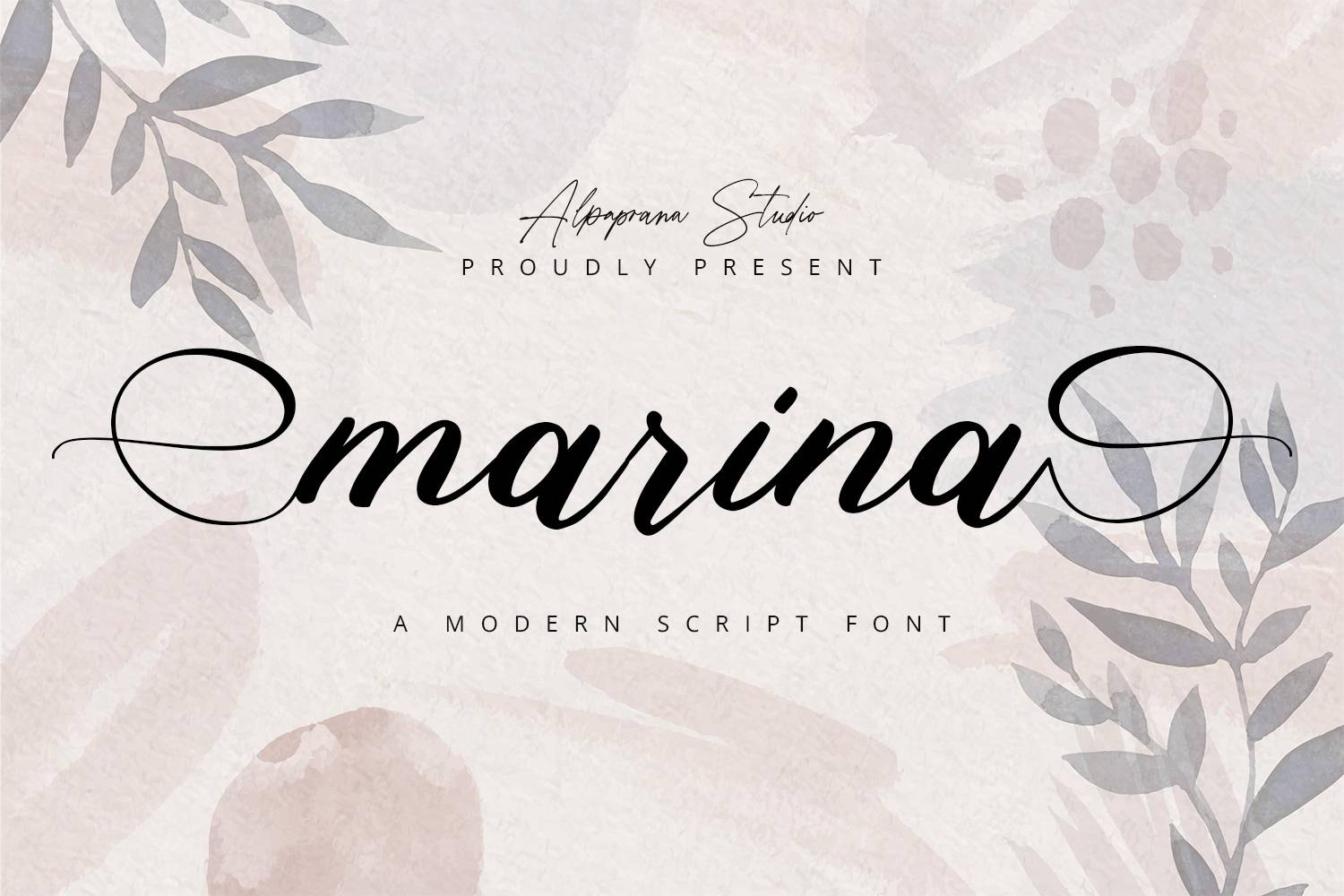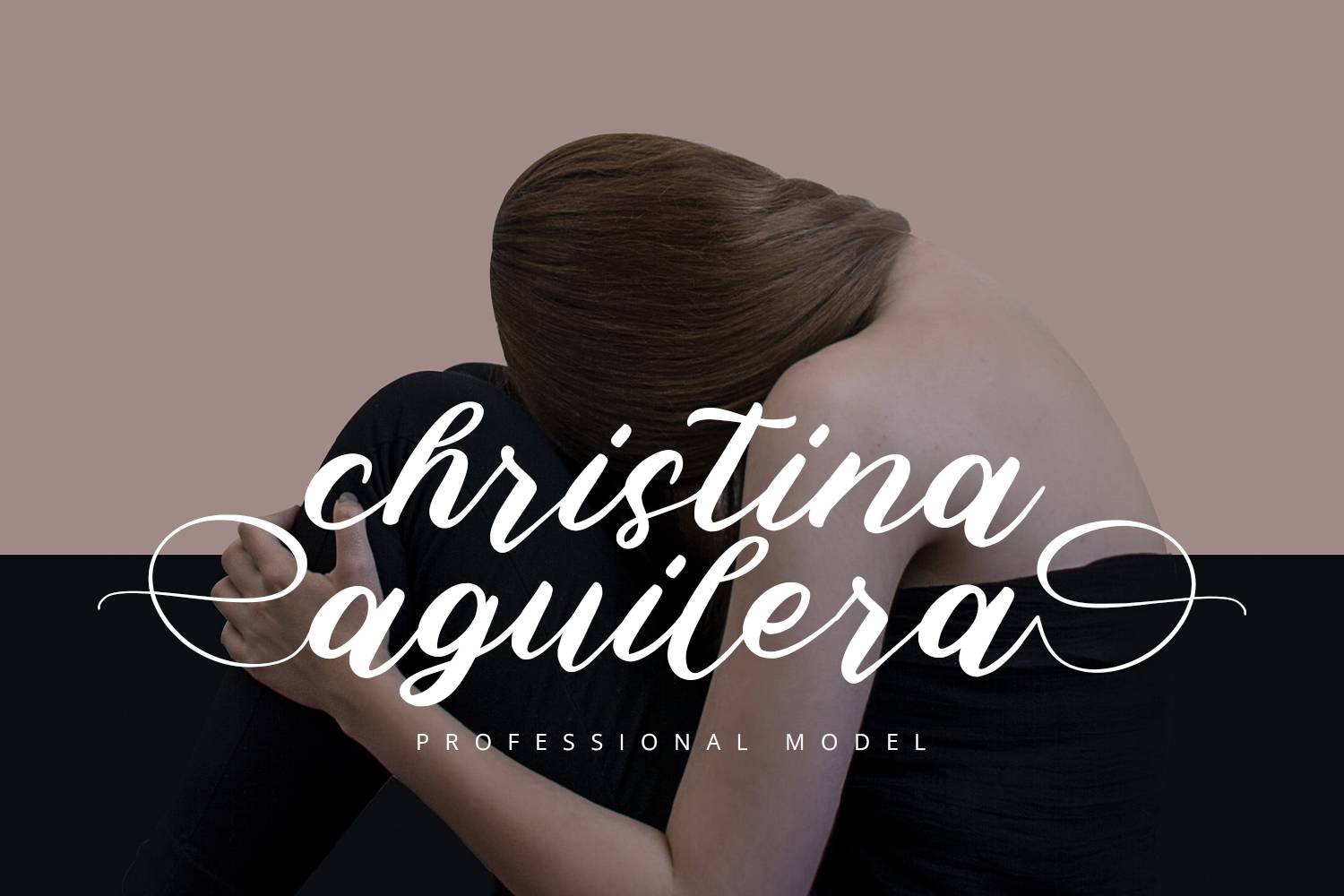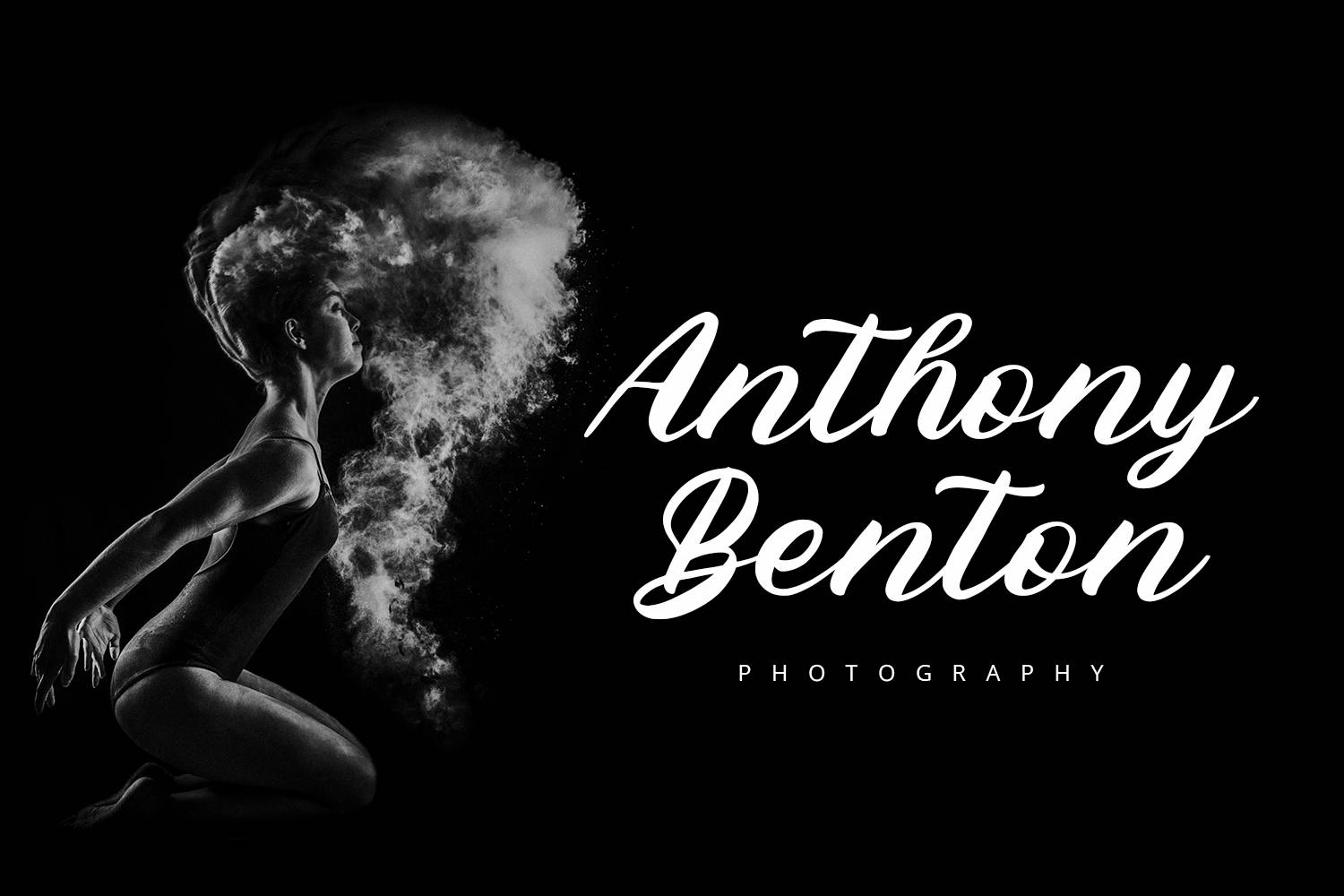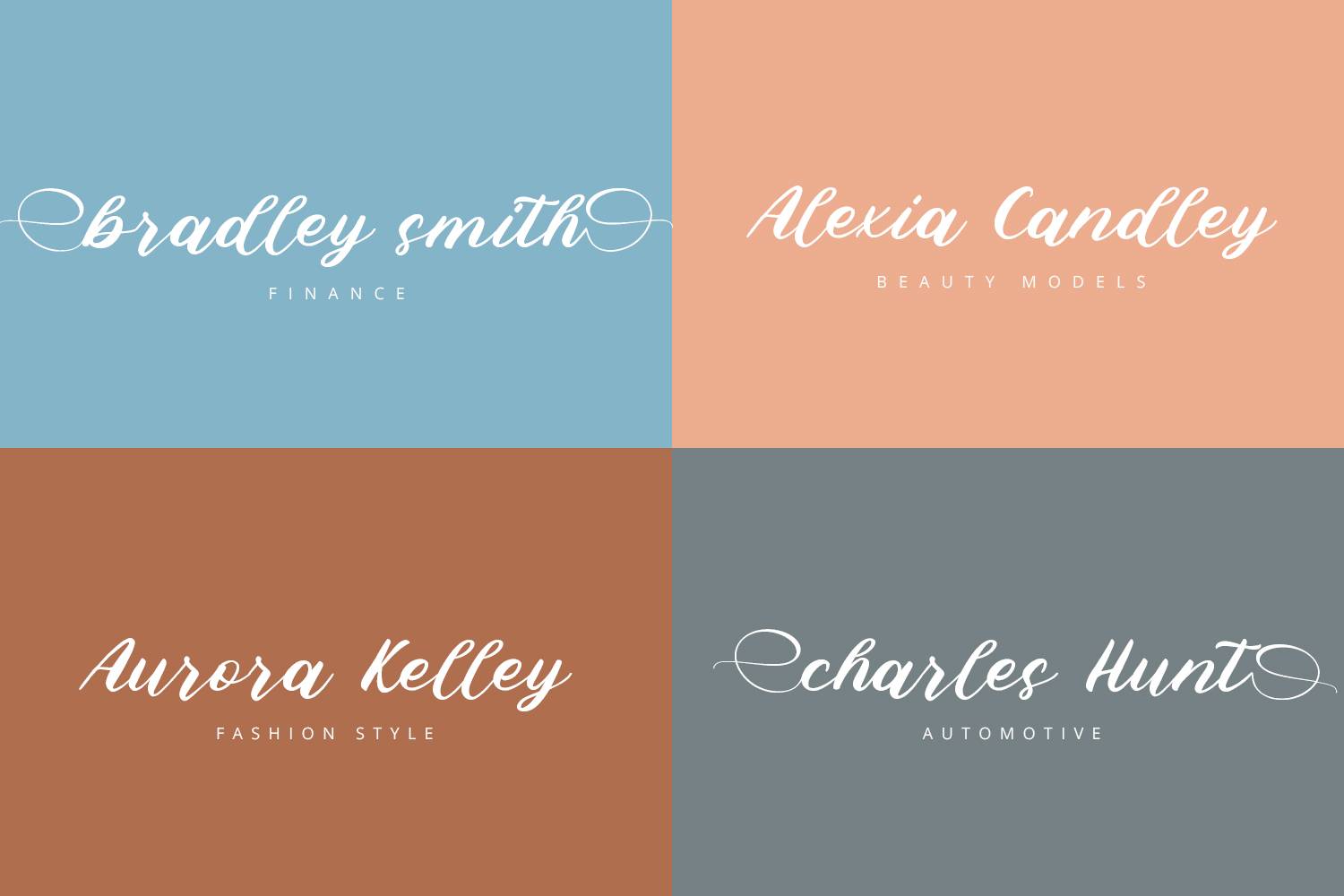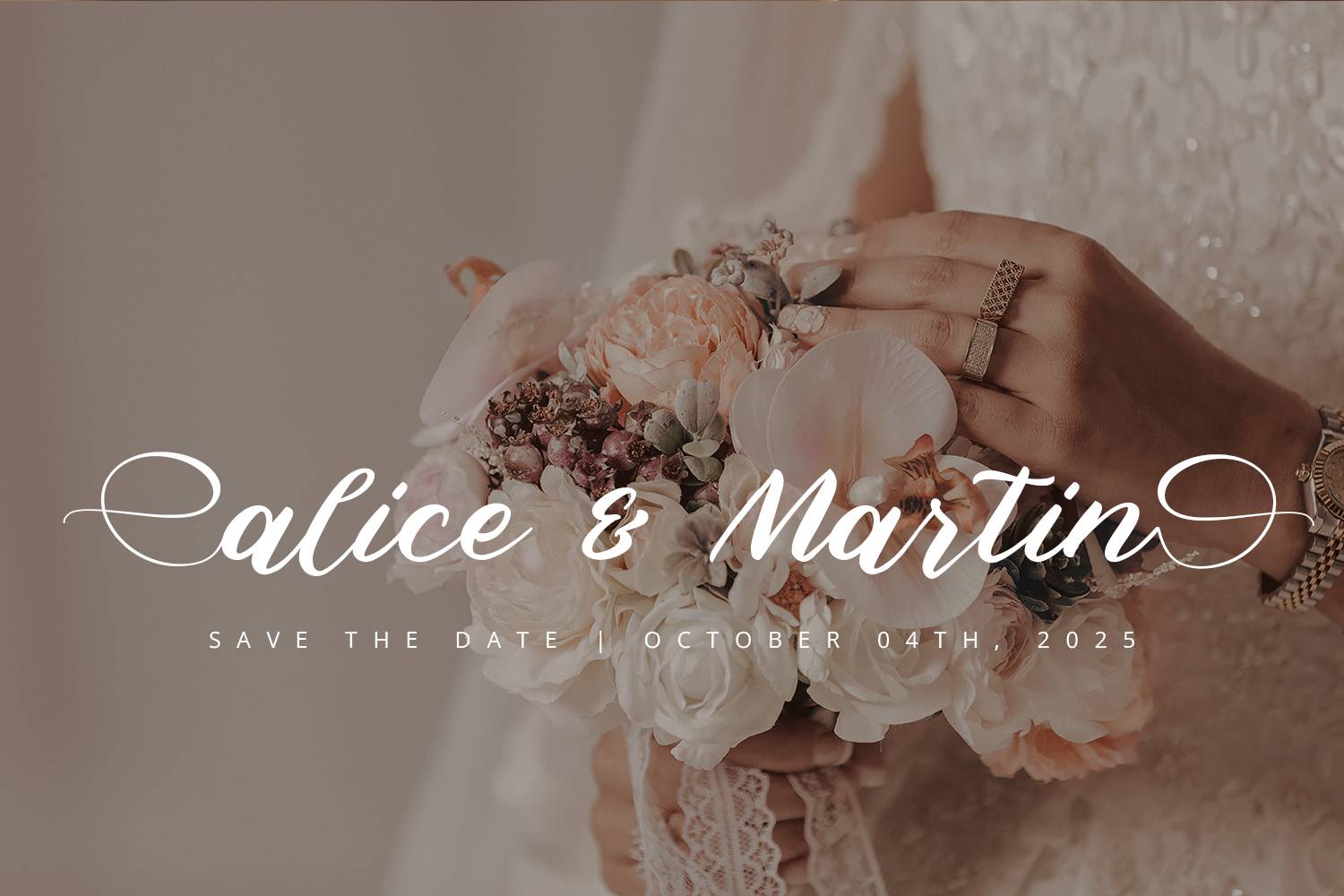
Marina is a stylish script font with a flowing, handwritten feel that combines elegance and casual charm. Its medium weight and smooth, curved strokes create a warm and approachable look, making it perfect for branding, invitations, and creative projects that seek a personal touch. This font works well in headlines and decorative text where a friendly, sophisticated style is desired.
Marina Font
About Marina Font